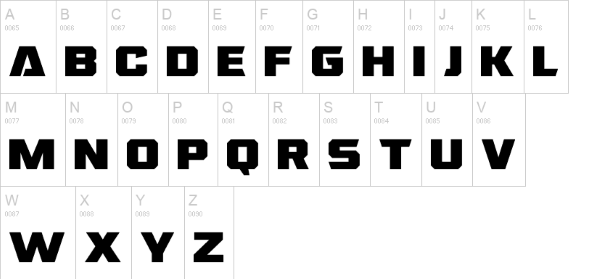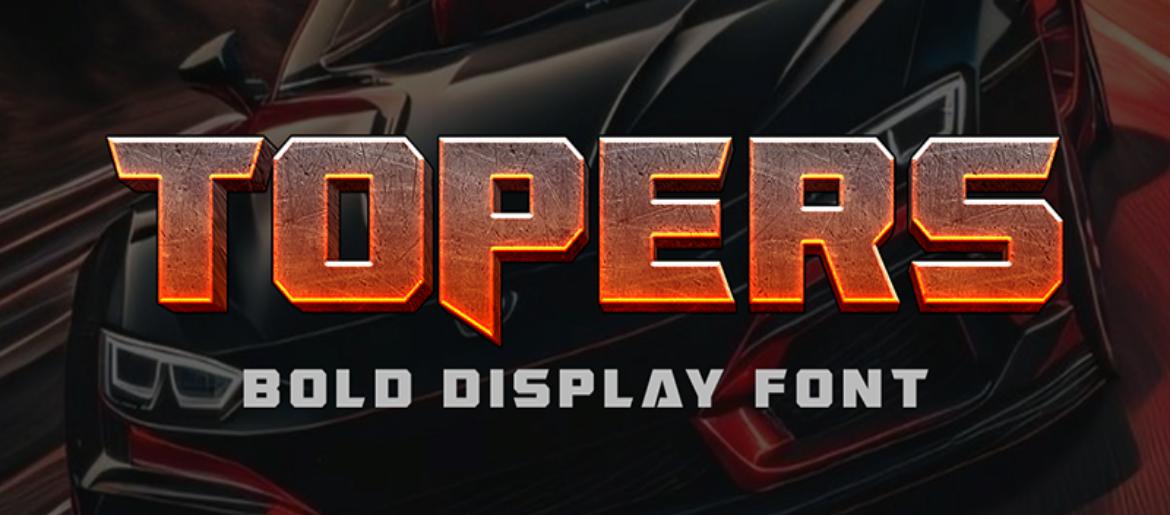
Topers Font
Topers Font is a modern, bold display typeface designed to deliver a clean and contemporary impression. Its simple, well-structured letterforms are free from unnecessary details, allowing the font to look sharp, clear, and highly professional. Topers is perfect for branding, headlines, posters, and any design that needs a strong, minimal, and modern visual impact.